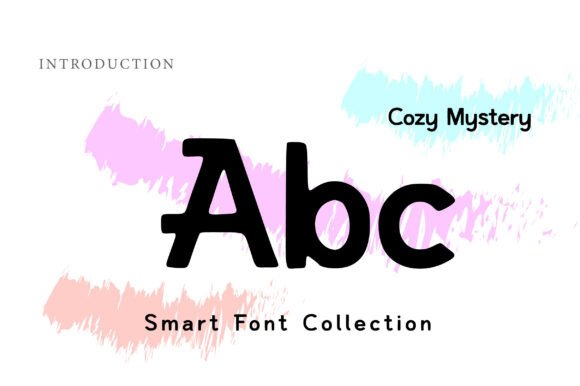
Introducing Cozy Mystery Font: The Perfect Blend of Whimsy and Sophistication
Are you a designer or crafter looking for a font that captures the essence of warmth, comfort, and mystery? Look no further than Cozy Mystery, a charming display serif font that exudes a sense of storybook charm and subtle vintage intrigue. In this article, we’ll dive into the unique features of Cozy Mystery and explore its various uses in design and crafting.
The Characteristics of Cozy Mystery
Cozy Mystery is a bold, serif font that boasts soft curves, friendly proportions, and slightly quirky letter shapes. These characteristics combine to create a font that feels inviting, yet perfect for titles that hint at intrigue. The bold weight ensures high readability, while the playful serif details add a touch of uniqueness and character.
One of the standout features of Cozy Mystery is its organic flow. This font captures a sense of comfort and simplicity that is often lost in digital designs. The subtle vintage mystery vibe adds a layer of sophistication, making it ideal for designs that require a balance of whimsy and elegance.
Uses for Cozy Mystery
Cozy Mystery is a versatile font that can be used in a variety of design and crafting projects. Here are some ideas to get you started:
- Book Covers: Cozy Mystery is perfect for book covers, especially in the cozy mystery, romance, and fiction genres. Its warm, storybook personality and subtle vintage mystery vibe evoke a sense of comfort and intrigue, making it ideal for capturing the essence of a novel.
- Podcast Titles: Add a touch of whimsy and sophistication to your podcast titles with Cozy Mystery. Its bold, serif design ensures high readability, even at smaller sizes.
- Stationery and Packaging: Cozy Mystery is a great choice for stationery and packaging designs that require a personal, handcrafted feel. Its organic flow and playful serif details add a touch of uniqueness and character.
- Blog Headers and Posters: Use Cozy Mystery to create eye-catching blog headers and posters that capture the essence of your brand or message.
- Branding Projects: Cozy Mystery is ideal for branding projects that require a cute-but-classic mood. Its versatility and charm make it perfect for boutique logos, product labels, and more.
Pairing Cozy Mystery with Other Design Elements
Cozy Mystery pairs wonderfully with watercolor textures and earth tones, helping you create a serene and authentic atmosphere that feels handcrafted and deeply personal. Here are some tips for pairing Cozy Mystery with other design elements:
- Watercolor Textures: Combine Cozy Mystery with watercolor textures to add a touch of whimsy and organic feel to your designs.
- Earth Tones: Pair Cozy Mystery with earth tones, such as beige, green, and blue, to create a natural and soothing color palette.
- Natural Patterns: Use Cozy Mystery with natural patterns, such as florals and foliage, to add a touch of elegance and sophistication.
Cozy Mystery is a charming display serif font that captures the essence of warmth, comfort, and mystery. Its unique characteristics, versatility, and charm make it perfect for a variety of design and crafting projects. Whether you’re designing a novel cover, a boutique logo, or a blog header, Cozy Mystery is the perfect choice for adding a touch of whimsy and sophistication to your designs.